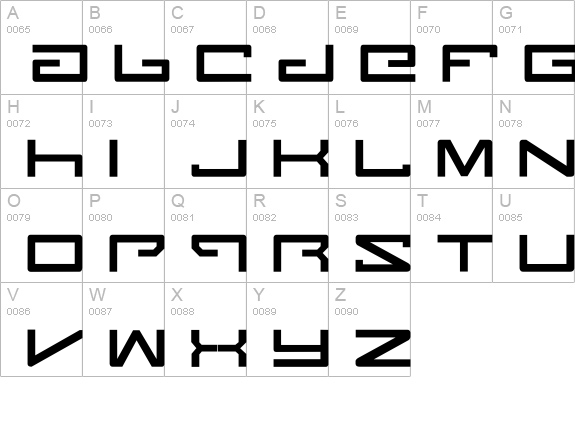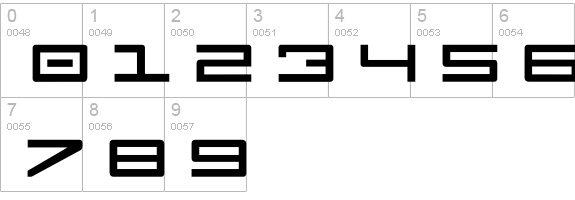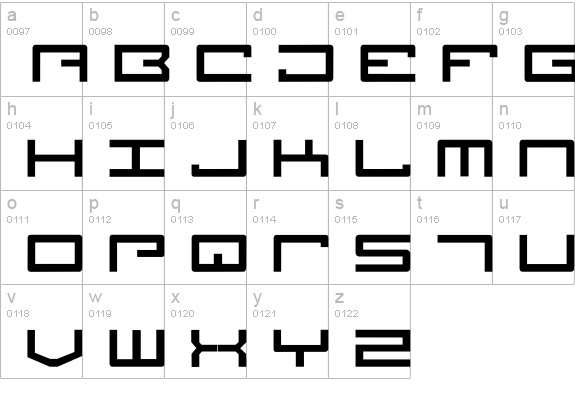
Legion Font Details
Legion font is a stunning and versatile typeface that exudes power, strength, and elegance. With its bold, block-like structure and clean lines, this font commands attention and makes a bold statement in any design project. Legion font is perfect for creating impactful headlines, captivating logos, eye-catching posters, and dynamic displays. Its strong presence and distinctive letterforms make it ideal for projects that require a touch of authority and sophistication. What makes Legion font even more appealing is that it is freely available to download at FontsMarket.com. This means that you can easily access and utilize this incredible font without any cost or hassle. Whether you are a professional designer looking to add a unique touch to your work or an aspiring creator seeking a font that stands out, Legion font is the perfect choice. With its wide range of characters, including uppercase letters, numerals, punctuation marks, and special symbols, Legion font offers endless possibilities for creative exploration. Its versatility allows it to be used in various design applications, from print materials to digital platforms. Legion font's legibility is also worth mentioning, as its well-defined and distinct letterforms ensure clarity and readability even at smaller sizes. This makes it suitable for a variety of projects, including magazine layouts, website designs, and branding materials. Overall, Legion font is a remarkable typeface that combines strength, elegance, and versatility. With its free availability at FontsMarket.com, it offers an incredible opportunity for designers and creators to enhance their projects with a font that truly makes a statement. Download Legion font today and unlock a world of design possibilities.